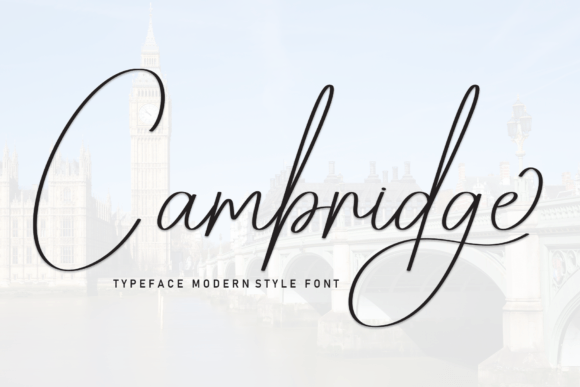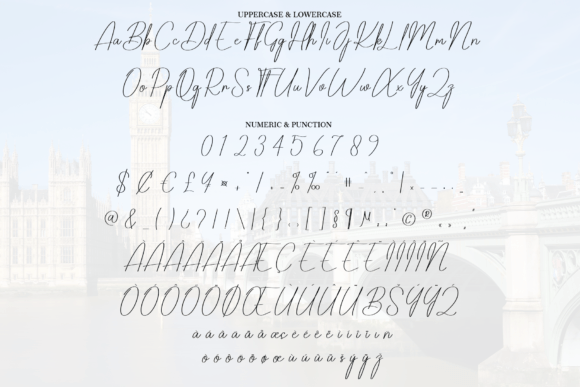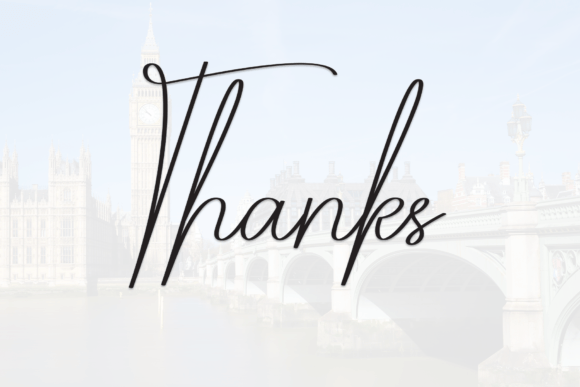
Cambridge Font
Cambridge is a sweet and cursive handwritten font. This gentle font will look gorgeous on a variety of design ideas. It will add a joyful and romantic touch to each of your projects!  Perfectly fit for branding, logo, wedding things, greeting cards, fashion, lookbook, marketing promotion, and anytime you want to look fancy and elegant but still casual.